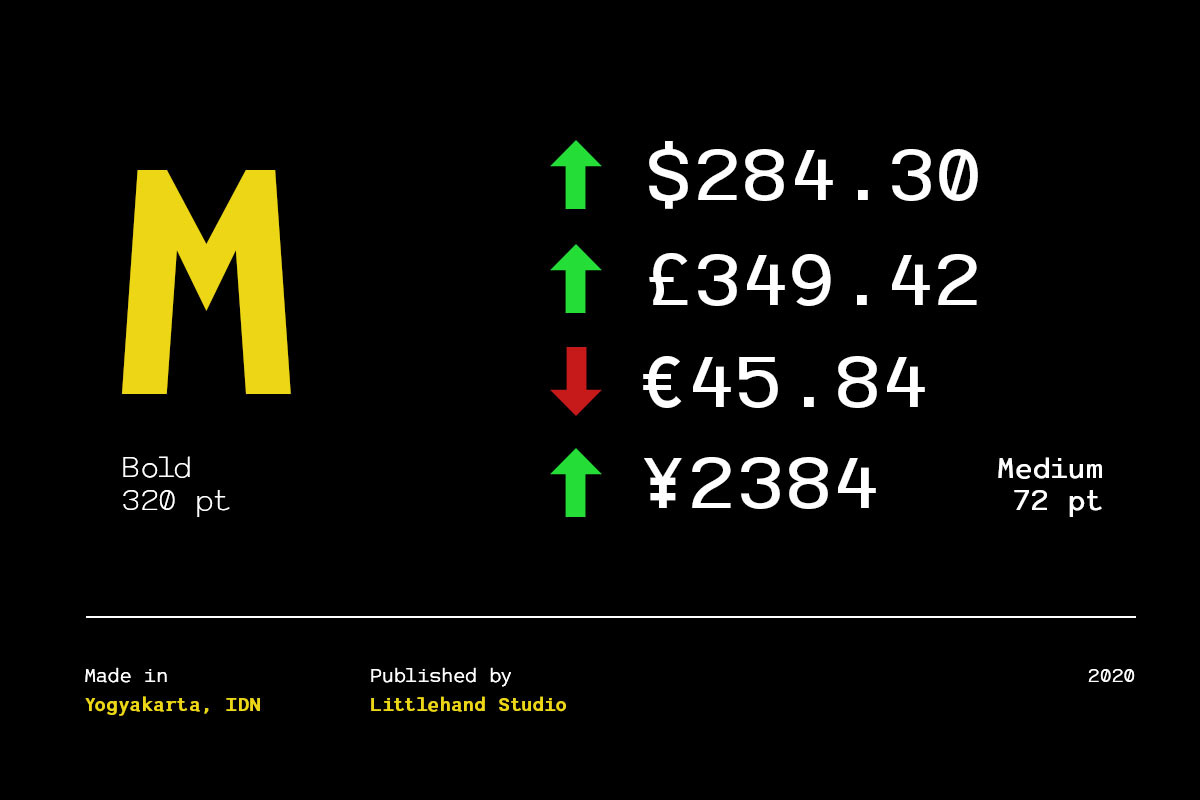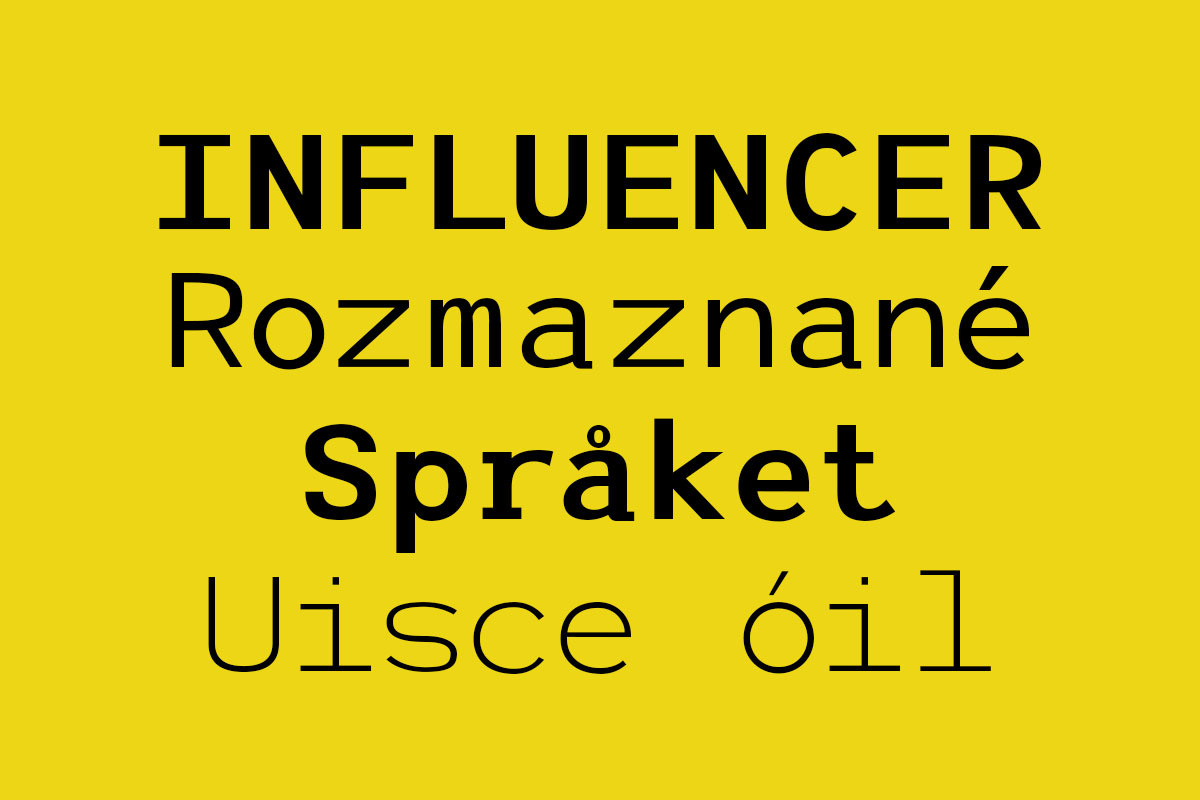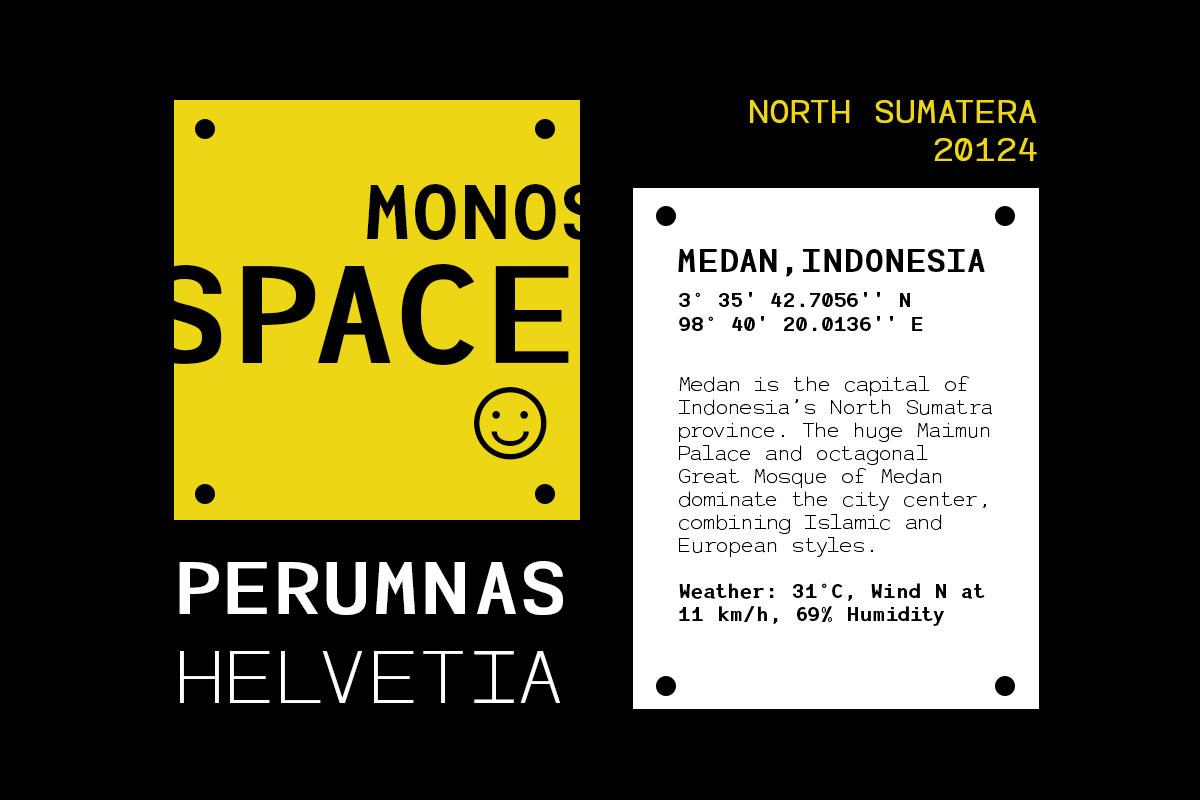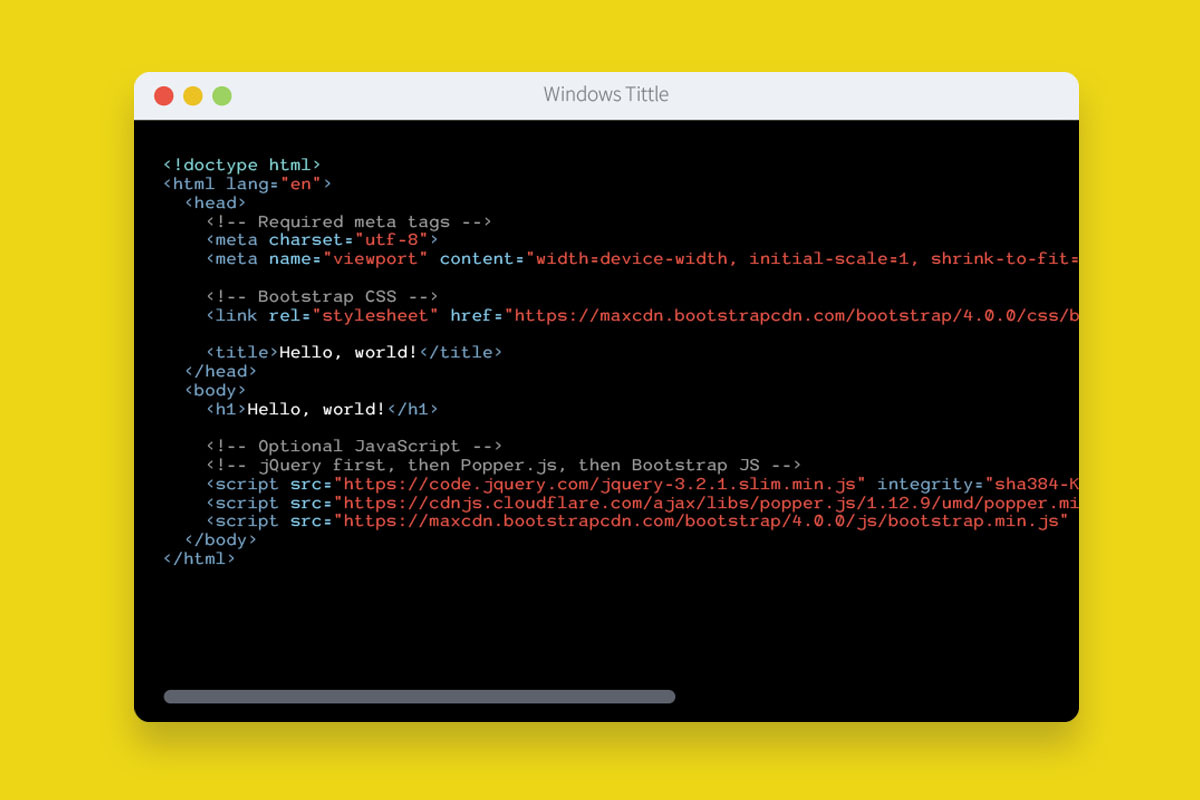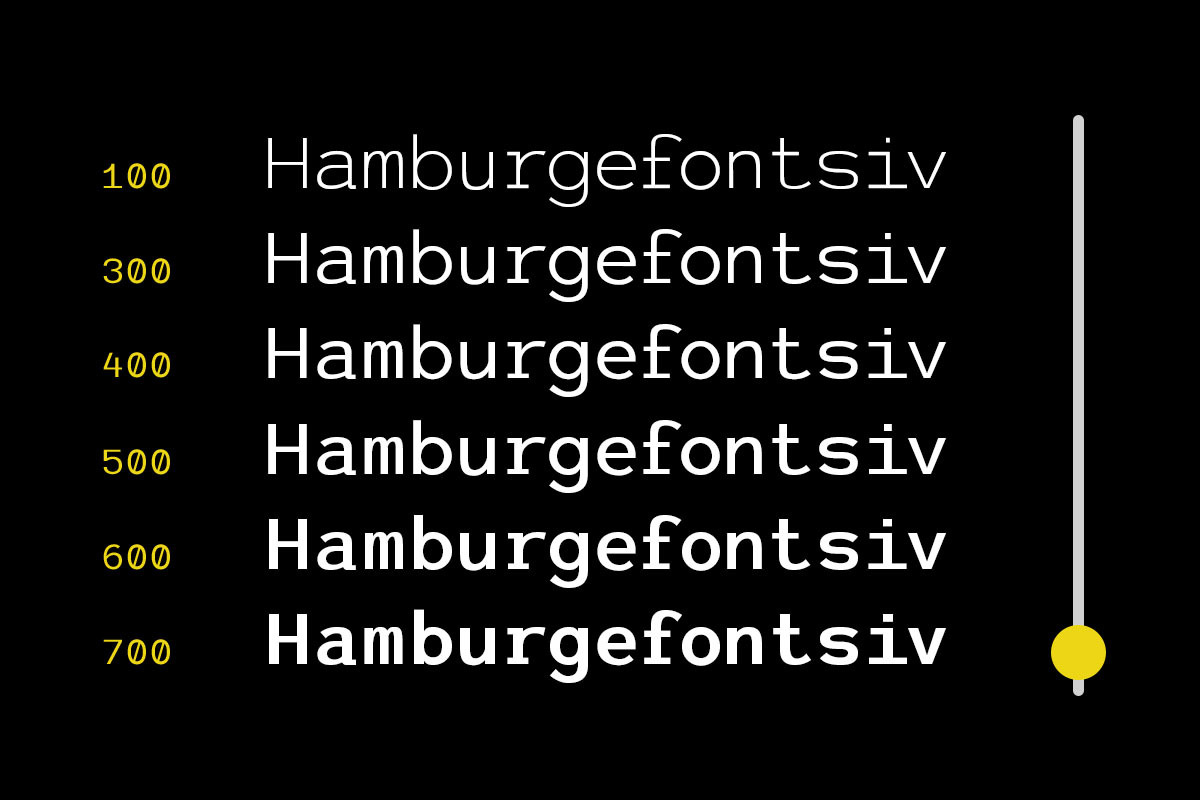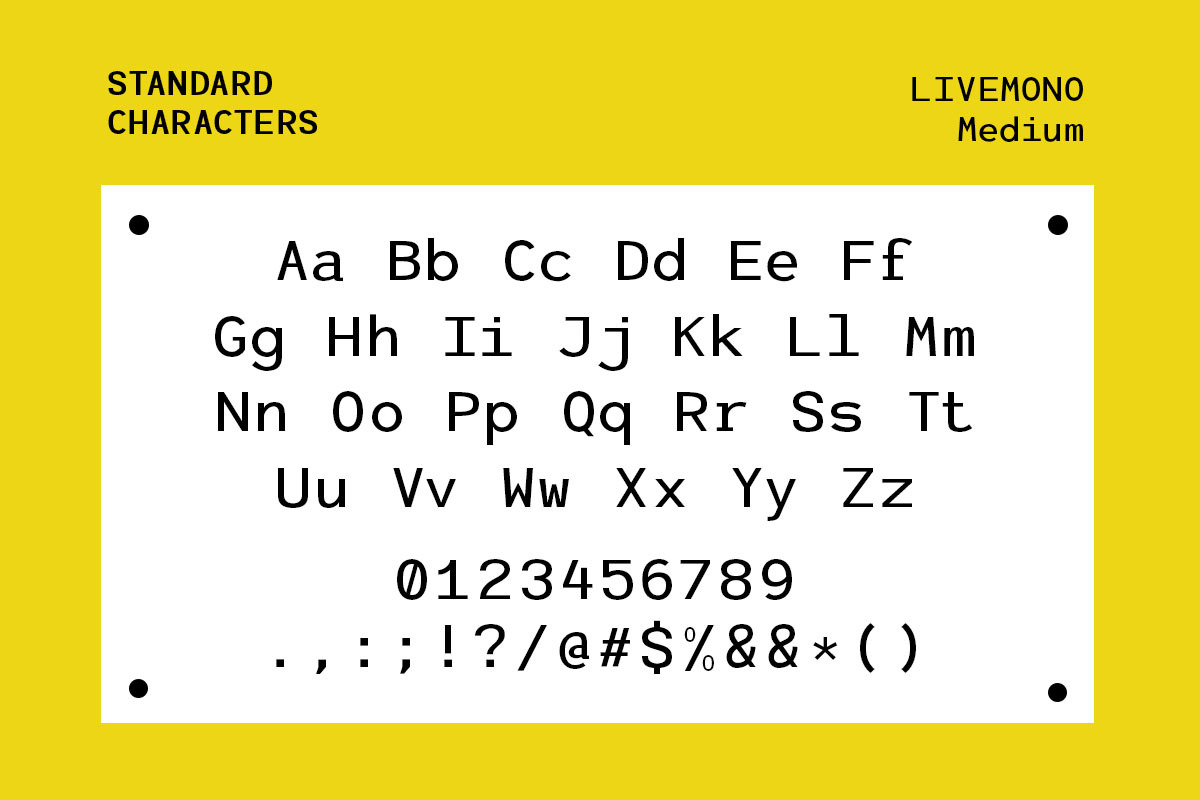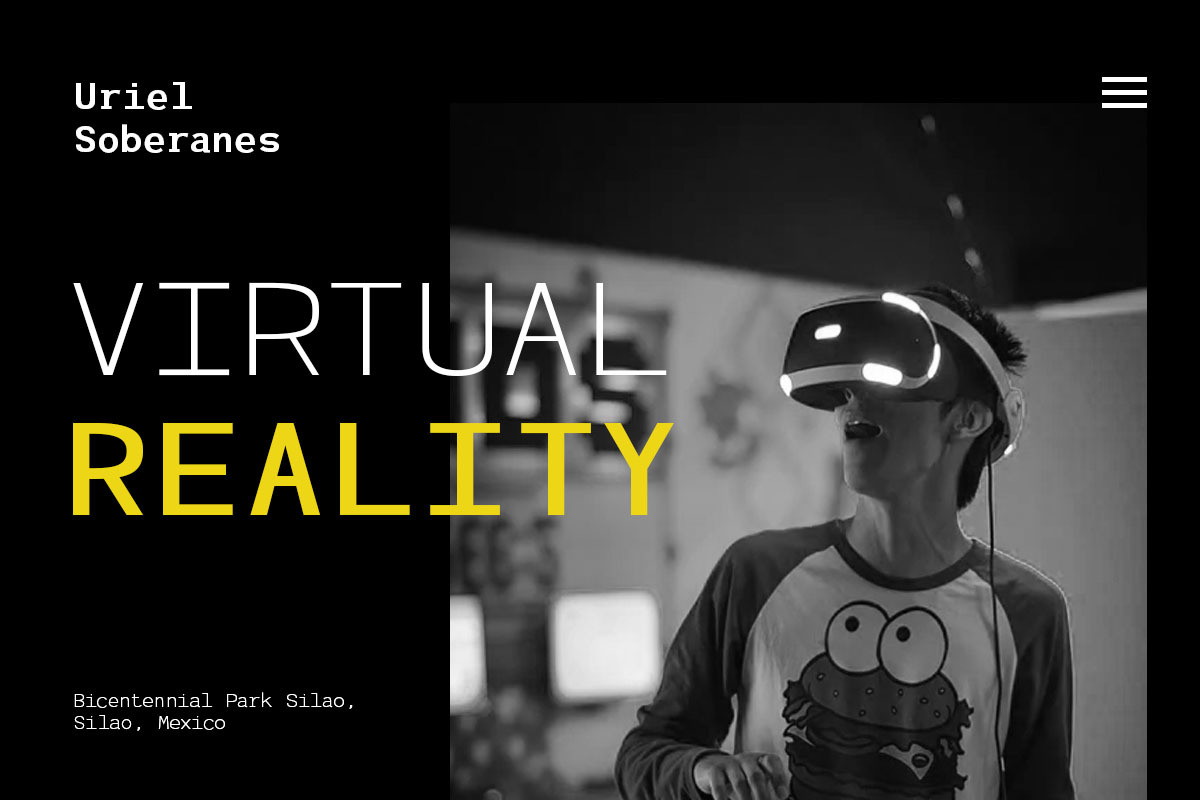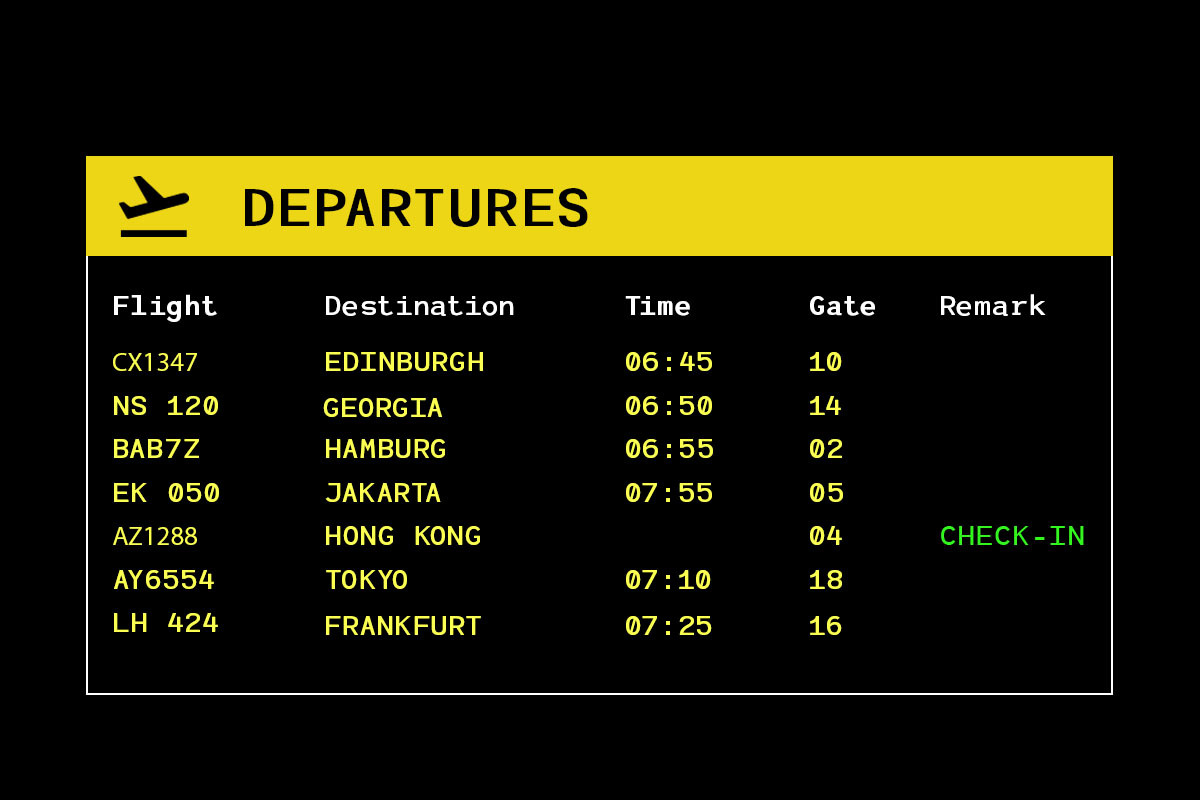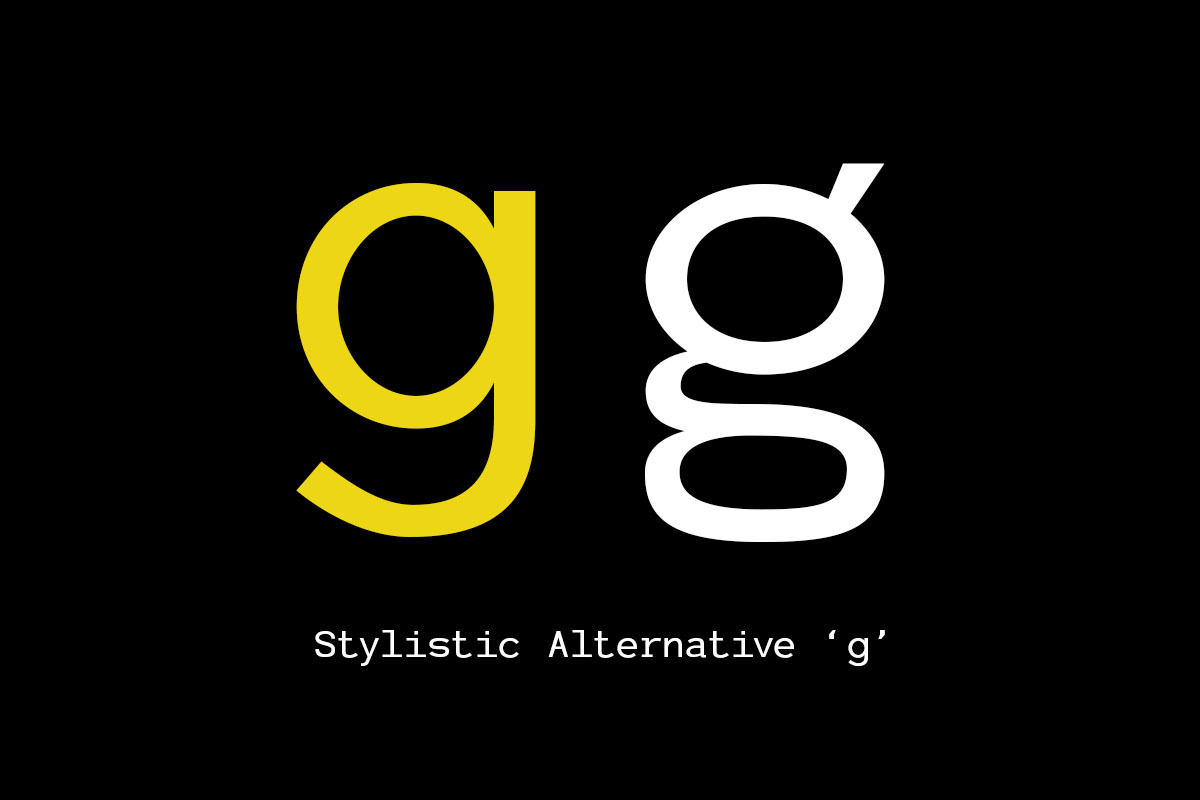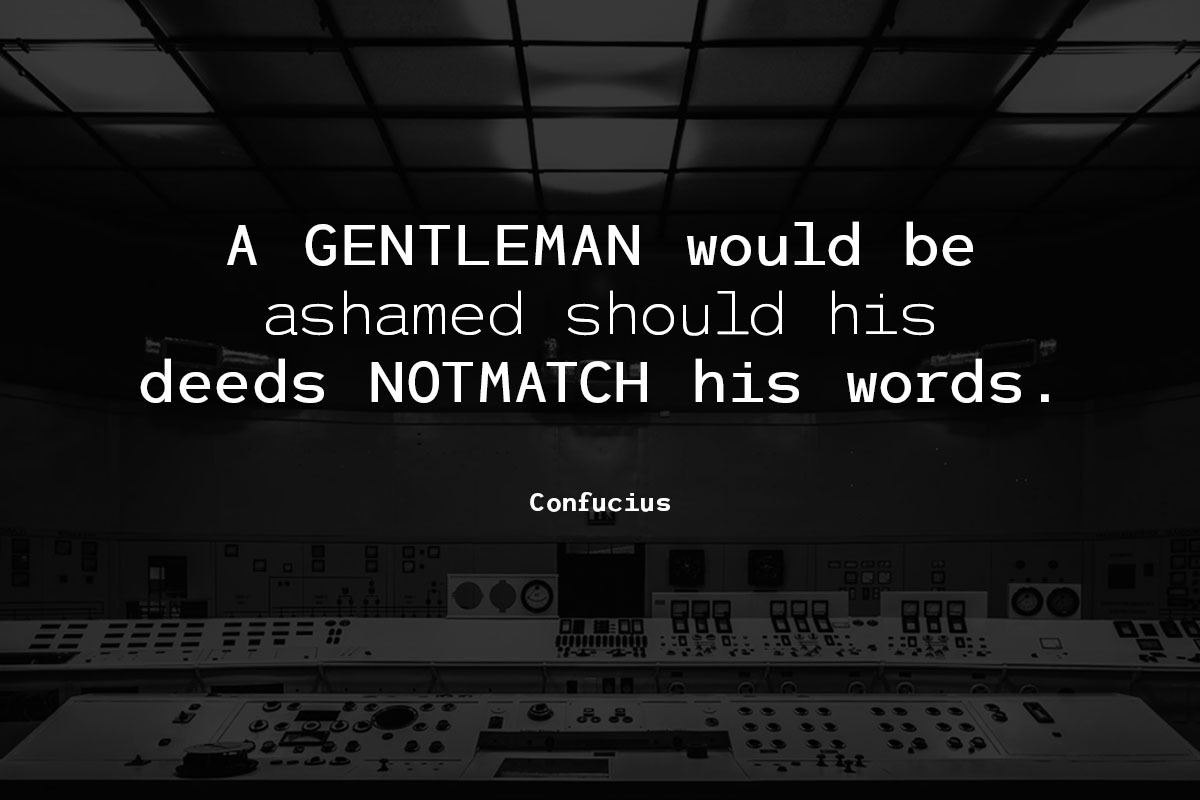
Livemono - A Monospaced Sans Serif
Livemono is a new monospaced sans serif. It looks clean and and very suitable for coding style. The typeface is versatile to blend in your design- with 6 weight, ranging from bold, light, medium, regular, semibold, and thin. Perfect anywhere you need a right finas touches for branding, publishing, titles, book, magazine , and use on UI/UX design.
- Variable Font
- 6 weight